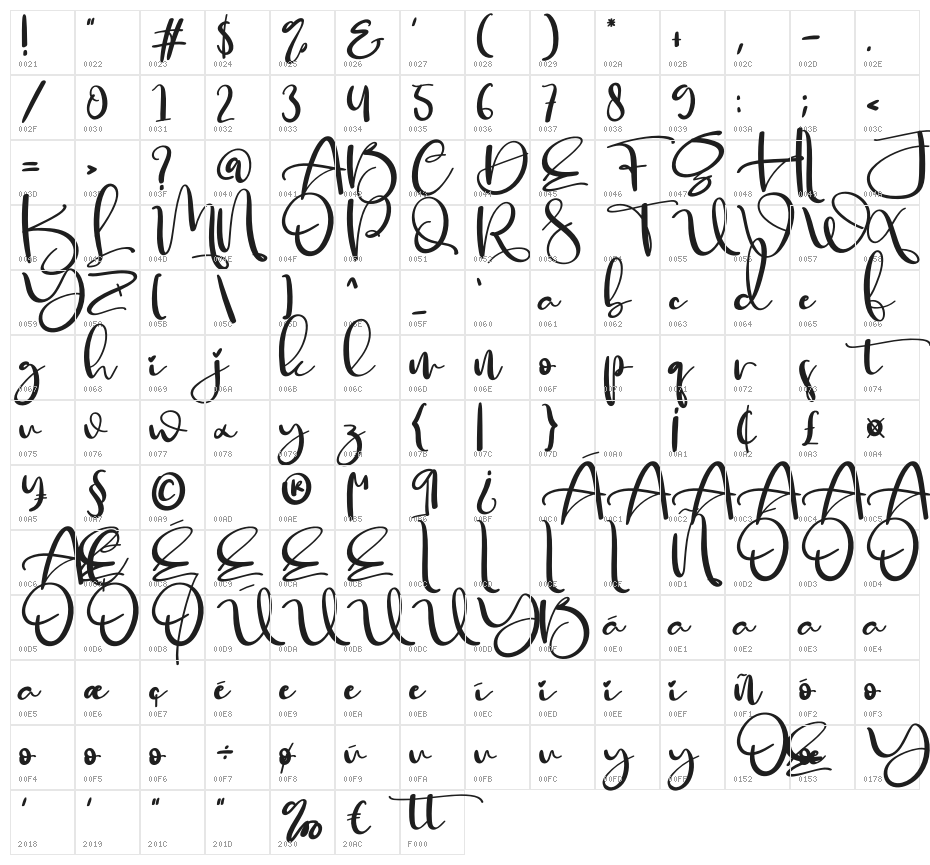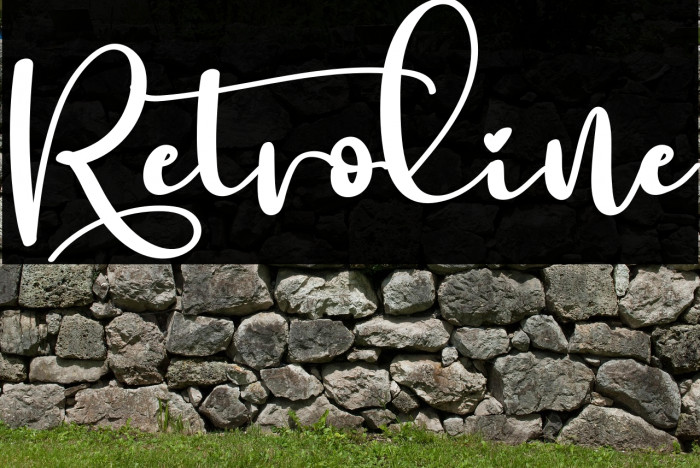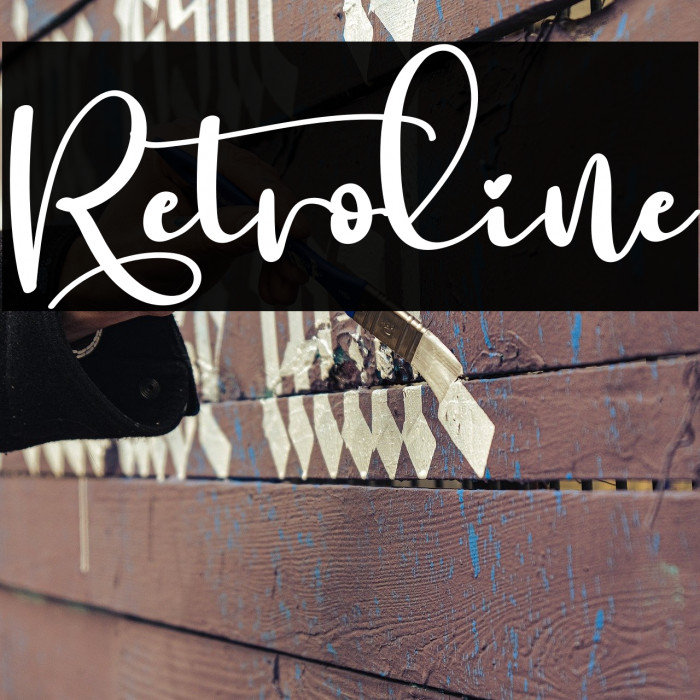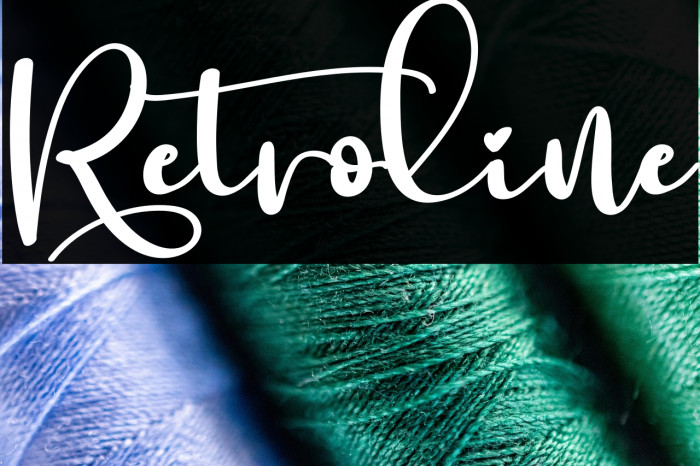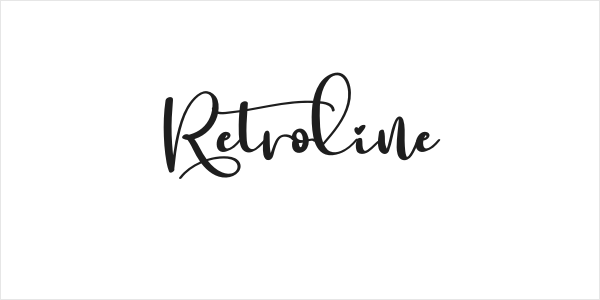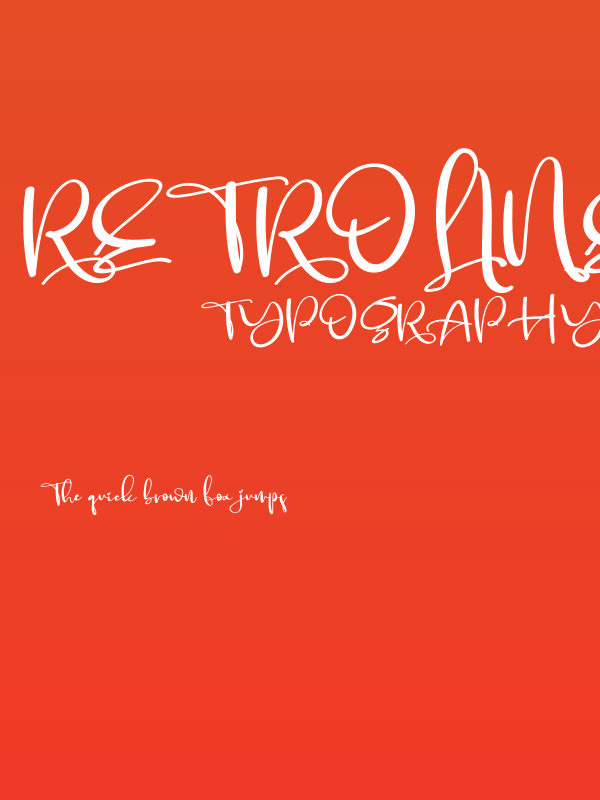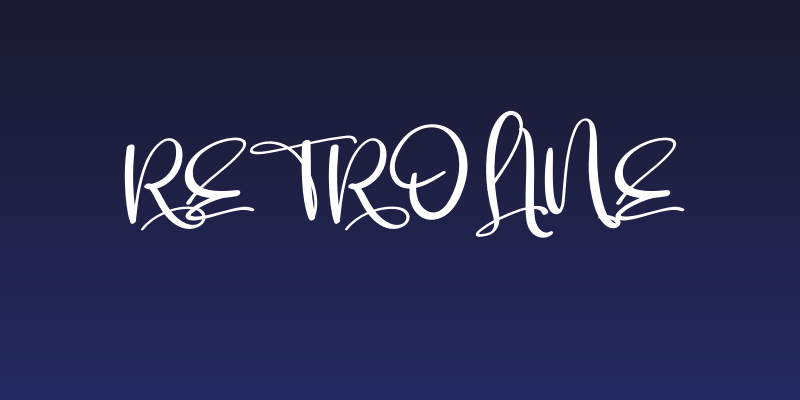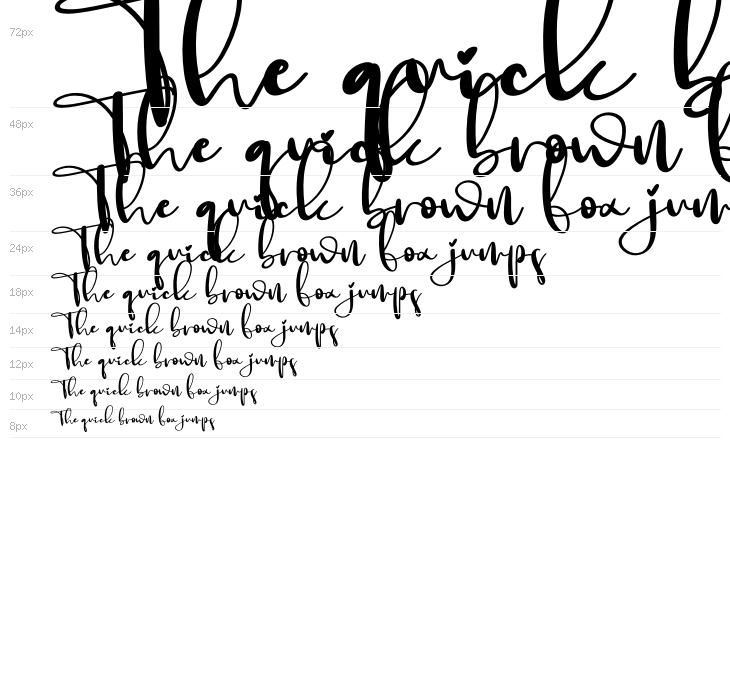
Retroline Font
Retroline Description
This font features a playful and energetic script style with a handwritten appearance. The letters are connected with smooth, flowing lines, giving it a dynamic and lively feel. The uppercase and lowercase characters maintain a consistent style, with some letters featuring unique loops and swirls that add to its charm. The numerals and special characters are equally expressive, complementing the overall aesthetic. The strokes are bold and confident, making it suitable for eye-catching designs.
| Use Case | Logos, Invitations, Greeting cards |
| Proposed Projects | Ideal for greeting cards, invitations, logos, and branding projects that require a personal and whimsical touch. |